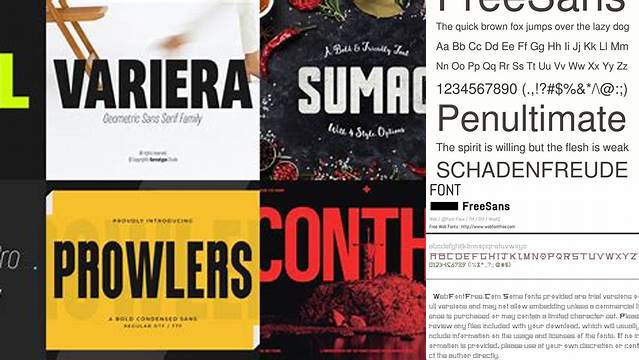
FreeSans Alternatives: Best Similar Fonts For Your Designs
Are you guys looking for some cool alternatives to FreeSans? Well, you've landed in the right spot! FreeSans is a pretty popular font, especially known for its clear and readable style, but sometimes you just need something a little different to spice things up in your projects. Whether you're working on a website, a document, or any other design, having a variety of font options is super crucial. In this article, we'll dive into some amazing fonts that are similar to FreeSans, offering you a broader palette to play with and make your work stand out. We're going to cover everything from readability and versatility to how you can use these fonts in various contexts. So, let's get started and explore some fantastic fonts that can give your projects that extra zing!
Why Look for FreeSans Alternatives?
Okay, so you might be wondering, "Why even bother looking for alternatives to FreeSans?" FreeSans is a solid font, no doubt about it. It's clean, it's legible, and it gets the job done. But here's the thing: in the world of design, variety is the spice of life! Sticking to just one font can make your projects look a bit⊠well, bland. Think of it like this: if every website, every document, and every presentation used the same font, things would get pretty monotonous, right? Different fonts have different personalities, and choosing the right one can significantly impact how your message is received. A font can convey professionalism, playfulness, seriousness, or any other tone you're aiming for. For example, a sleek, modern font might be perfect for a tech startup's website, while a more traditional font could be better suited for a formal document. Plus, using a variety of fonts can help you create visual hierarchy and make your content more engaging. Headings can stand out, body text can be easy on the eyes, and special elements can grab attention, all thanks to the right font choices. So, while FreeSans is a great option, exploring alternatives opens up a world of possibilities and allows you to bring your creative vision to life in a much more compelling way. It's all about having the right tools in your toolkit to make your projects shine!
Key Characteristics of FreeSans
Before we jump into the alternatives to FreeSans, let's take a moment to really understand what makes FreeSans, well, FreeSans. Knowing its key characteristics will help us find fonts that offer a similar vibe or even improve upon certain aspects. First off, FreeSans is a sans-serif font, which means it doesn't have those little decorative strokes (serifs) at the ends of the letters. This gives it a clean, modern look that's super popular for digital use. One of the main things people love about FreeSans is its readability. It's designed to be clear and easy to read, even at smaller sizes. This makes it a great choice for body text on websites, documents, and presentations. The letterforms are simple and well-proportioned, which helps with legibility. Another key feature of FreeSans is its versatility. It works well in a variety of contexts, from formal reports to casual blog posts. It's a bit of a workhorse font, meaning it can handle a lot of different tasks without looking out of place. FreeSans also has a fairly neutral tone, which is both a strength and a potential limitation. It doesn't have a lot of personality on its own, which means it can blend in easily. This is great if you want a font that doesn't distract from your content, but it also means you might need to look elsewhere if you're aiming for a font with a strong, distinctive character. Finally, FreeSans is known for its wide character set, which includes a broad range of characters, symbols, and language support. This is super important if you're working on projects that need to support multiple languages or special characters. So, keeping these characteristics in mindâclean, readable, versatile, neutral, and with a wide character setâwill guide us as we explore the alternatives.
Top Fonts Similar to FreeSans
Alright, guys, let's get to the good stuff! We're talking about the top fonts similar to FreeSans that you can use to add some variety and flair to your projects. We've scoured the font universe to bring you a list of awesome alternatives that share FreeSans's clean, readable vibe but also bring their own unique personality to the table. These fonts are perfect for everything from websites and apps to documents and presentations. So, without further ado, let's dive in!
1. Helvetica
First up, we have the legendary Helvetica. This font is like the OG of clean, modern sans-serif typefaces. Helvetica is renowned for its neutrality and clarity, making it an excellent choice for a wide range of applications. Just like FreeSans, Helvetica is super readable, which is why it's used everywhere from corporate branding to public signage. Its simple, geometric forms give it a timeless quality, and it works incredibly well in both print and digital formats. One of the reasons Helvetica is so popular is its versatility. It's a font that doesn't shout for attention; instead, it quietly does its job, ensuring your message is clear and easy to understand. However, some designers feel that Helvetica's neutrality can also be a drawback, as it might lack a distinct personality for projects that need a bit more character. But if you're looking for a reliable, clean, and highly legible font, Helvetica is definitely a top contender. It's a classic for a reason!
2. Arial
Next on our list is Arial, another widely used sans-serif font that often gets compared to Helvetica. Arial is known for its clean lines and excellent readability, making it a solid alternative to FreeSans. It's a font that's designed to be highly legible on screen, which is why it's a common choice for websites and digital documents. Arial shares many of the same characteristics as FreeSans, such as its neutral tone and versatility. It works well in a variety of contexts, from body text to headlines, and its simple design ensures that it doesn't distract from the content. One of the key differences between Arial and Helvetica is that Arial has slightly more rounded terminals (the ends of the strokes), which some people find gives it a friendlier feel. However, it's a subtle difference, and both fonts share a similar overall aesthetic. Arial is also a great option if you need a font that's readily available, as it comes pre-installed on many operating systems. This makes it a convenient choice for projects where font compatibility is a concern. So, if you're looking for a font that's clean, readable, and widely accessible, Arial is definitely worth considering.
3. Roboto
Moving on, let's talk about Roboto. This font was designed by Google and is the system font for Android, so you've probably seen it a million times without even realizing it! Roboto is a modern sans-serif font that combines geometric forms with friendly curves, making it both readable and visually appealing. It's a fantastic alternative to FreeSans because it shares the same clarity and versatility but has a bit more personality. One of the standout features of Roboto is its dual nature. It has a mechanical skeleton, which gives it a sense of precision and efficiency, but it also has open curves that make it feel approachable and welcoming. This balance makes Roboto a great choice for a wide range of applications, from user interfaces to marketing materials. Roboto is also highly legible at different sizes, which is crucial for both digital and print design. It comes in a variety of weights and styles, giving you plenty of options to play with. Whether you need a light, airy font for body text or a bold, impactful font for headlines, Roboto has you covered. Plus, because it's a Google font, it's free to use and easy to access, making it a super convenient option for any project.
4. Open Sans
Another fantastic Google Font that deserves a spot on our list is Open Sans. This font is specifically designed for readability across print, web, and mobile interfaces, making it an excellent choice for a wide range of projects. Open Sans is a humanist sans-serif font, which means it has a slightly warmer, more approachable feel compared to some of the more geometric fonts we've discussed. Like FreeSans, Open Sans is clean and straightforward, but it has subtle design details that give it a unique character. The letterforms are open and airy, which enhances readability, especially at smaller sizes. This makes Open Sans a great option for body text, where clarity is key. Open Sans also works well for headlines and other display elements, thanks to its versatility and clean aesthetic. It comes in a variety of weights, allowing you to create visual hierarchy and add emphasis to your designs. One of the best things about Open Sans is that it's free to use and widely available, making it a convenient choice for both personal and commercial projects. If you're looking for a font that's highly readable, versatile, and has a touch of warmth, Open Sans is definitely one to consider as an alternative to FreeSans.
5. Lato
Last but not least, we have Lato, a sans-serif typeface designed by Ćukasz Dziedzic. Lato is a super popular font known for its semi-rounded details, which give it a warm and friendly feel while maintaining a professional appearance. Itâs often praised for its legibility and versatility, making it a great alternative to FreeSans. Lato is particularly interesting because it was designed to be transparent in body text but display some unique traits when used in larger sizes. This means it works beautifully in a variety of applications, from long-form articles to eye-catching headlines. One of the reasons Lato is so versatile is its balanced design. It combines a sense of stability and seriousness with a touch of approachability, making it suitable for a wide range of projects. Whether youâre working on a corporate website, a personal blog, or a print brochure, Lato can fit right in. Lato also comes in a wide range of weights and styles, giving you plenty of flexibility to create visual contrast and hierarchy in your designs. From thin and light to bold and heavy, Lato has you covered. And, like many of the other fonts on our list, Lato is available for free under the SIL Open Font License, making it an accessible choice for designers of all levels. If youâre looking for a font thatâs modern, readable, and has a subtle touch of personality, Lato is definitely worth a try.
How to Choose the Right Font
Choosing the right font for your project can feel like a big decision, but don't worry, guys, we're here to help! With so many amazing alternatives to FreeSans out there, it's all about finding the perfect fit for your specific needs and goals. So, how do you navigate the font landscape and make the best choice? Let's break it down into a few key considerations.
So, there you have it, guys! A comprehensive look at some fantastic alternatives to FreeSans that can add a unique touch to your projects. We've explored a range of fonts, from the classic Helvetica and Arial to the modern Roboto and Open Sans, each with its own personality and strengths. Choosing the right font is a crucial part of design, and having a variety of options at your disposal allows you to create visuals that are not only readable but also engaging and impactful. Remember, the best font for your project will depend on a number of factors, including the type of project, the tone you're trying to convey, and the overall aesthetic you're aiming for. Consider readability, font pairing, and the specific needs of your audience when making your decision. Whether you're designing a website, a document, or a presentation, the fonts we've discussed in this article can help you elevate your work and communicate your message effectively. So go ahead, experiment with these fonts, and discover the perfect fit for your next project! Happy designing!